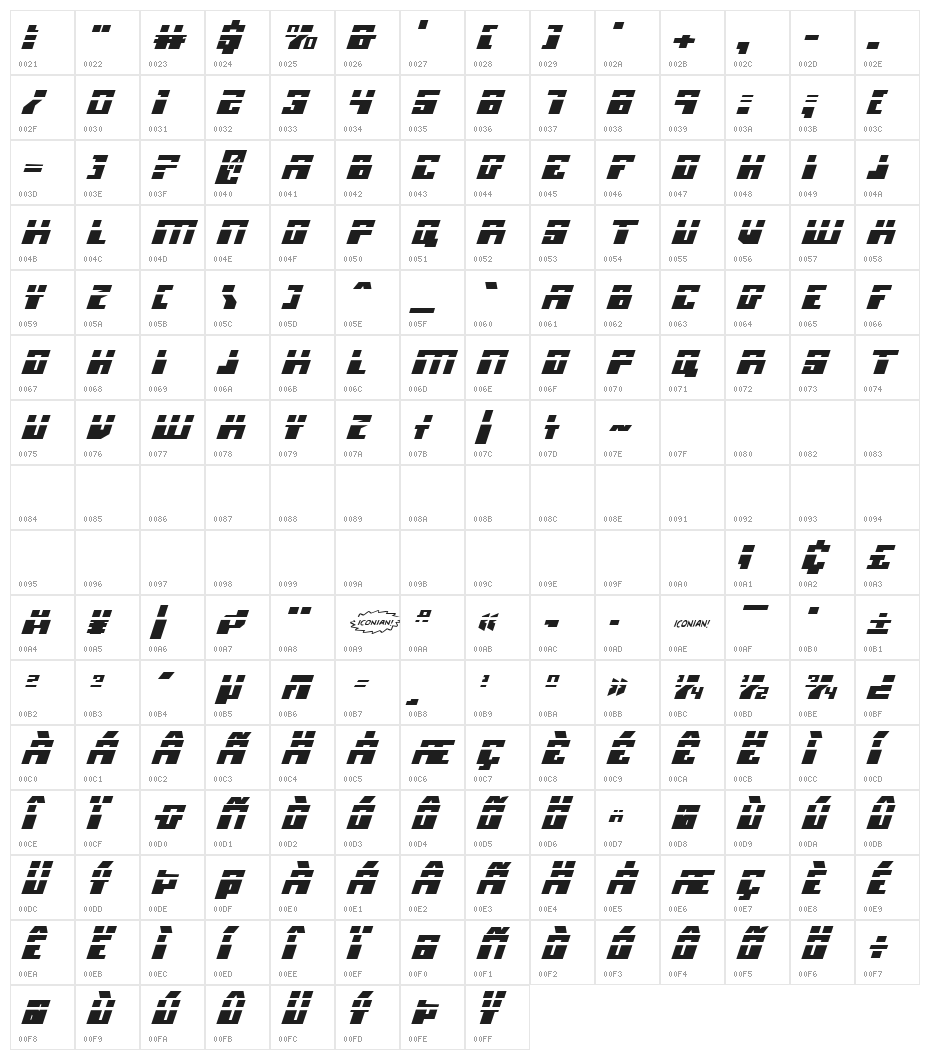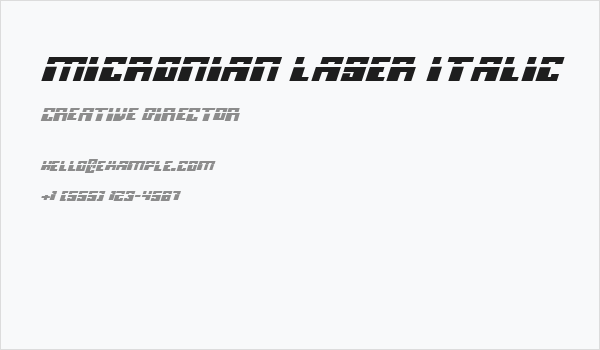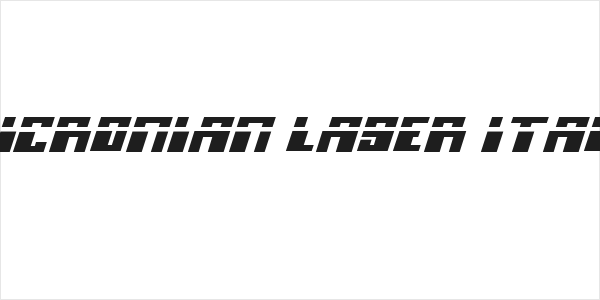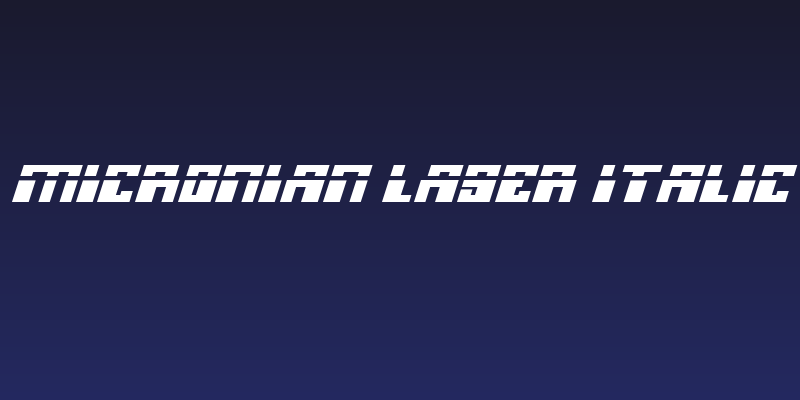
Micronian Laser Italic Font
Micronian Laser Italic Description
This font features a futuristic and angular design, characterized by sharp edges and a bold presence. The letters are slanted, giving an italicized appearance that enhances its dynamic and modern feel. The uppercase and lowercase letters maintain a consistent geometric style, with each character exhibiting a unique, stylized form. The numerals and special characters follow the same design principles, ensuring uniformity across all glyphs. The font's distinct aesthetic makes it suitable for projects that require a strong, tech-inspired look.
| Proposed Projects | Ideal for sci-fi themed designs, video game graphics, tech branding, and futuristic posters. |